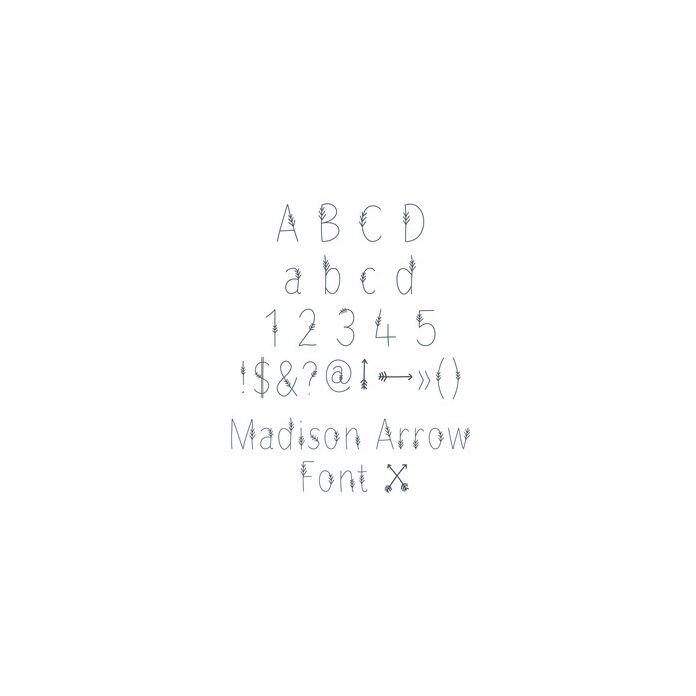
Madison Arrow Font. Handwritten font, includes upper and lower case letters, numbers, glyphs and doodles. For more design ideas, coordinating designs & products and inspiration, please visit my blog http://www.sarahhurleyblog.com